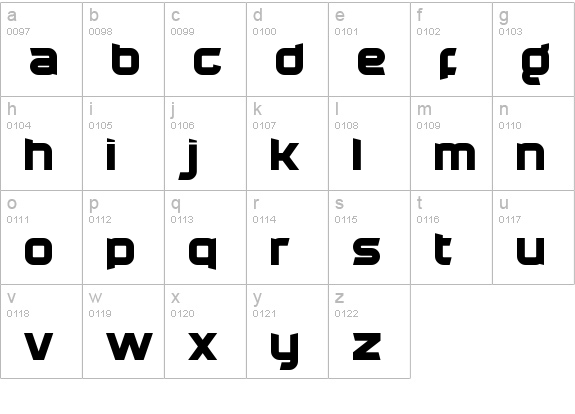
Cassius Garrod Font Details
Cassius Garrod font is a modern and elegant typeface perfect for adding a touch of sophistication to your projects. Its sleek lines and stylish curves make it versatile for various design applications, from branding to editorial design. This font exudes a sense of class and refinement, making it ideal for creating eye-catching headlines or elegant invitations. The best part about Cassius Garrod font is that it is completely free to download. You can get your hands on this stunning typeface at FontsMarket.com without any cost, making it accessible to all designers and creatives looking to elevate their work with a touch of elegance. Don't miss out on the opportunity to enhance your designs with the beauty of Cassius Garrod font – download it today and let your creativity soar.